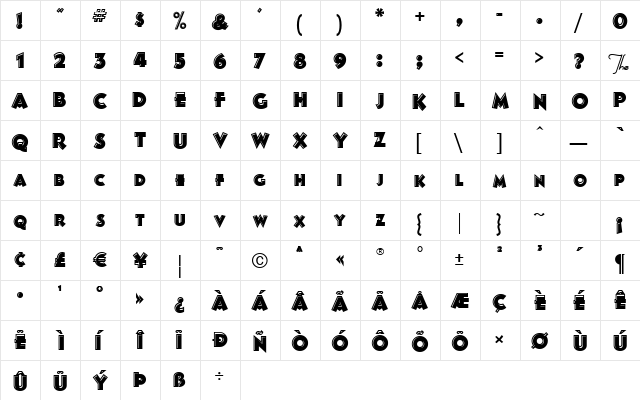
2 Bruiser Lit DNA Regular
Design Context for 2 Bruiser Lit DNA Typeface
2 Bruiser Lit DNA is a composed and adaptable typeface that performs quietly and consistently across a wide range of design contexts.